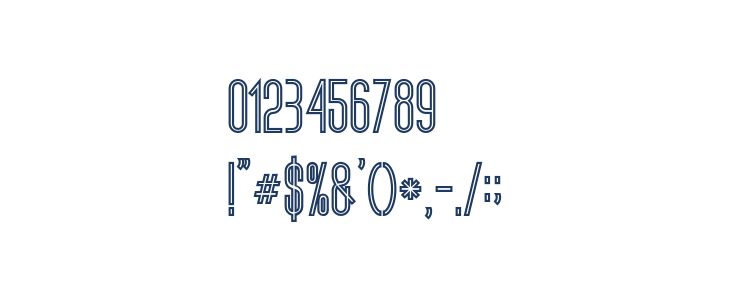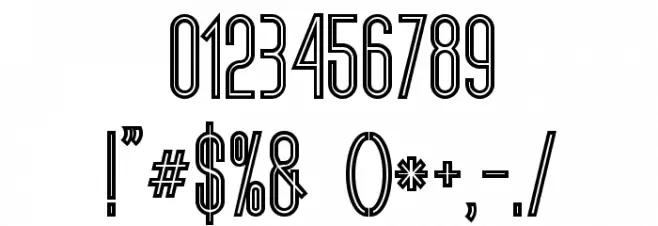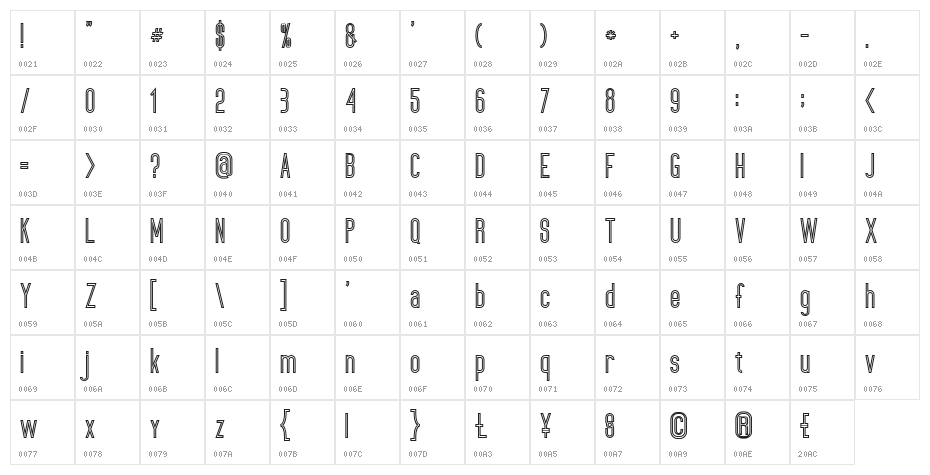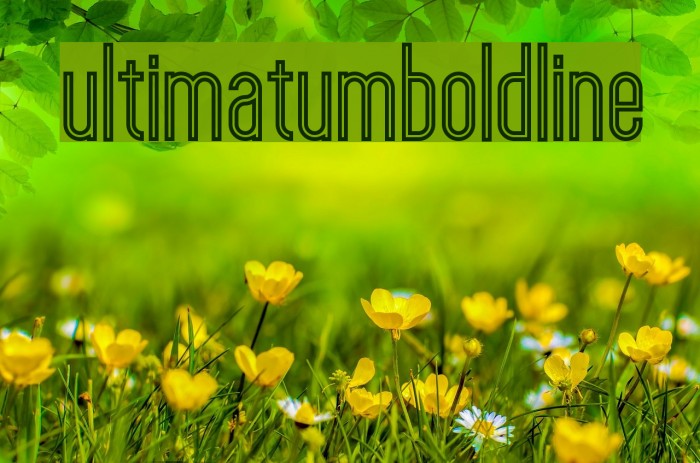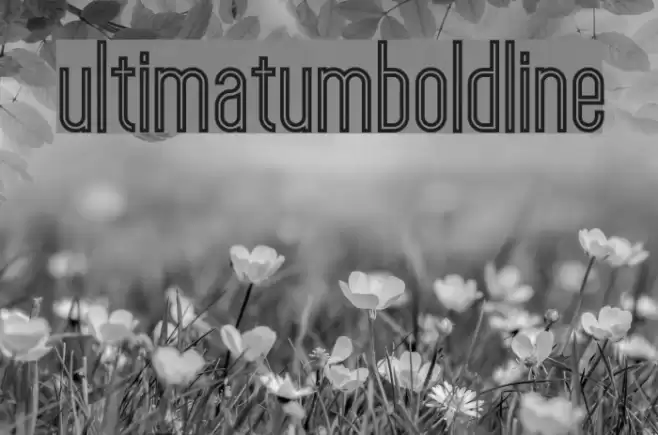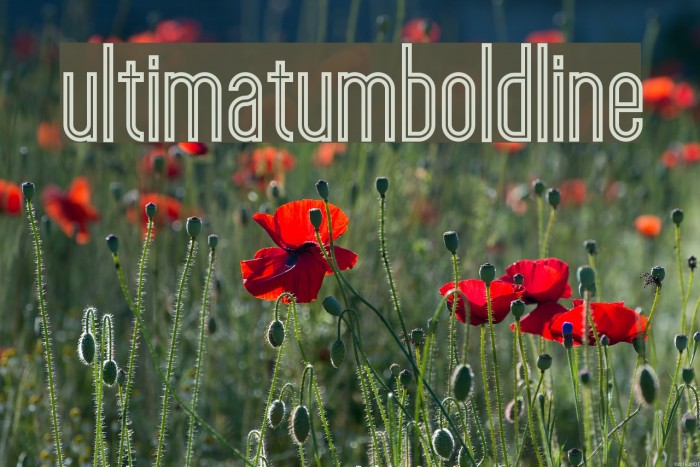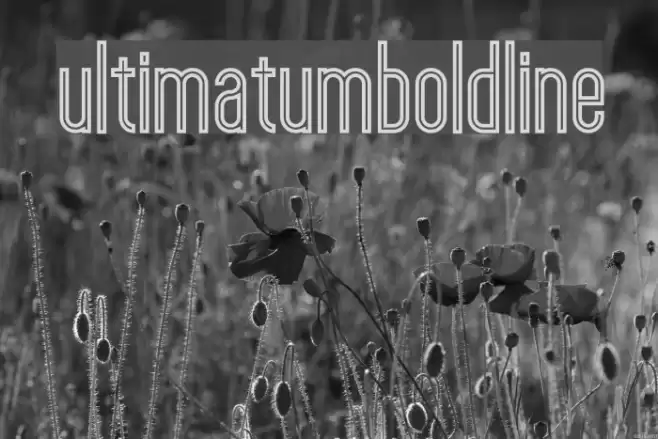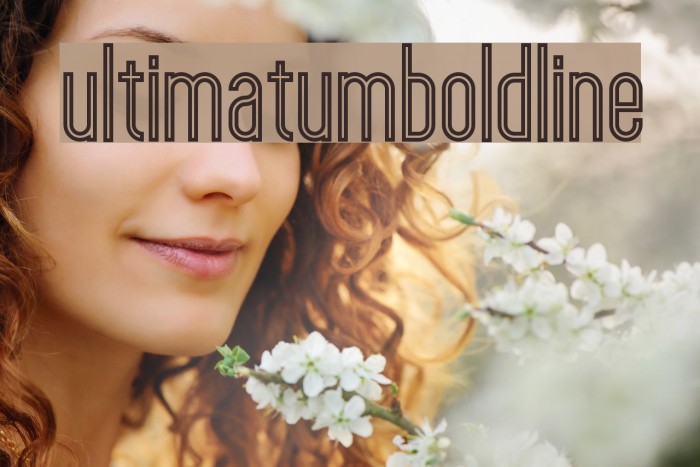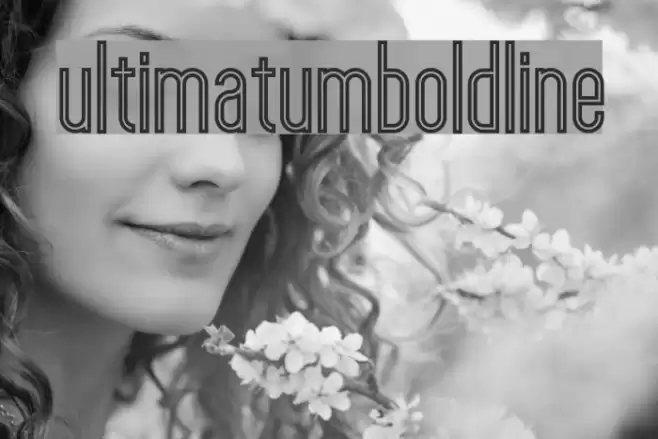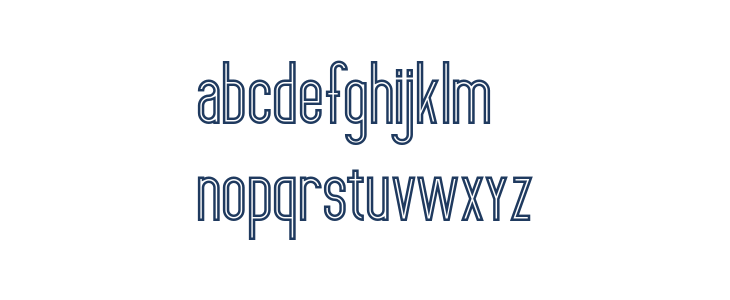
ultimatumboldline Font
ultimatumboldline Description
This font features a bold, outlined style with a modern and geometric appearance. The uppercase and lowercase letters are designed with a consistent stroke width, creating a uniform and structured look. The characters are tall and narrow, giving them an elongated form that enhances readability. The numbers and special characters follow the same design principles, ensuring a cohesive appearance across all glyphs. The font's clean lines and contemporary style make it suitable for various design applications.